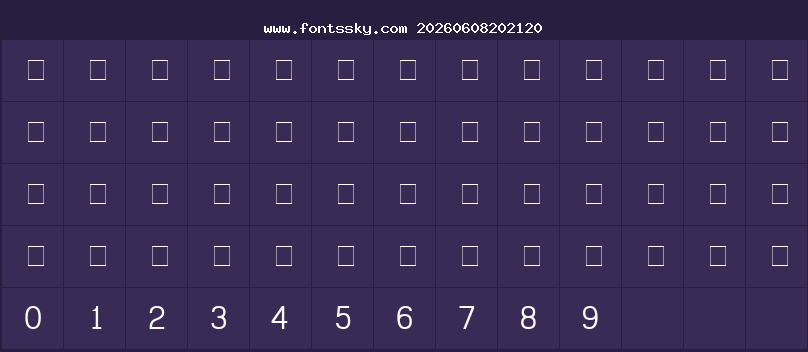
• Font Name: Content
• Full Font Name: Content
• Designer: Danh Hong
Content.ttf is a modern, elegant sans-serif font designed for ultimate readability and visual harmony. Perfect for branding, headlines, web design, and print materials.